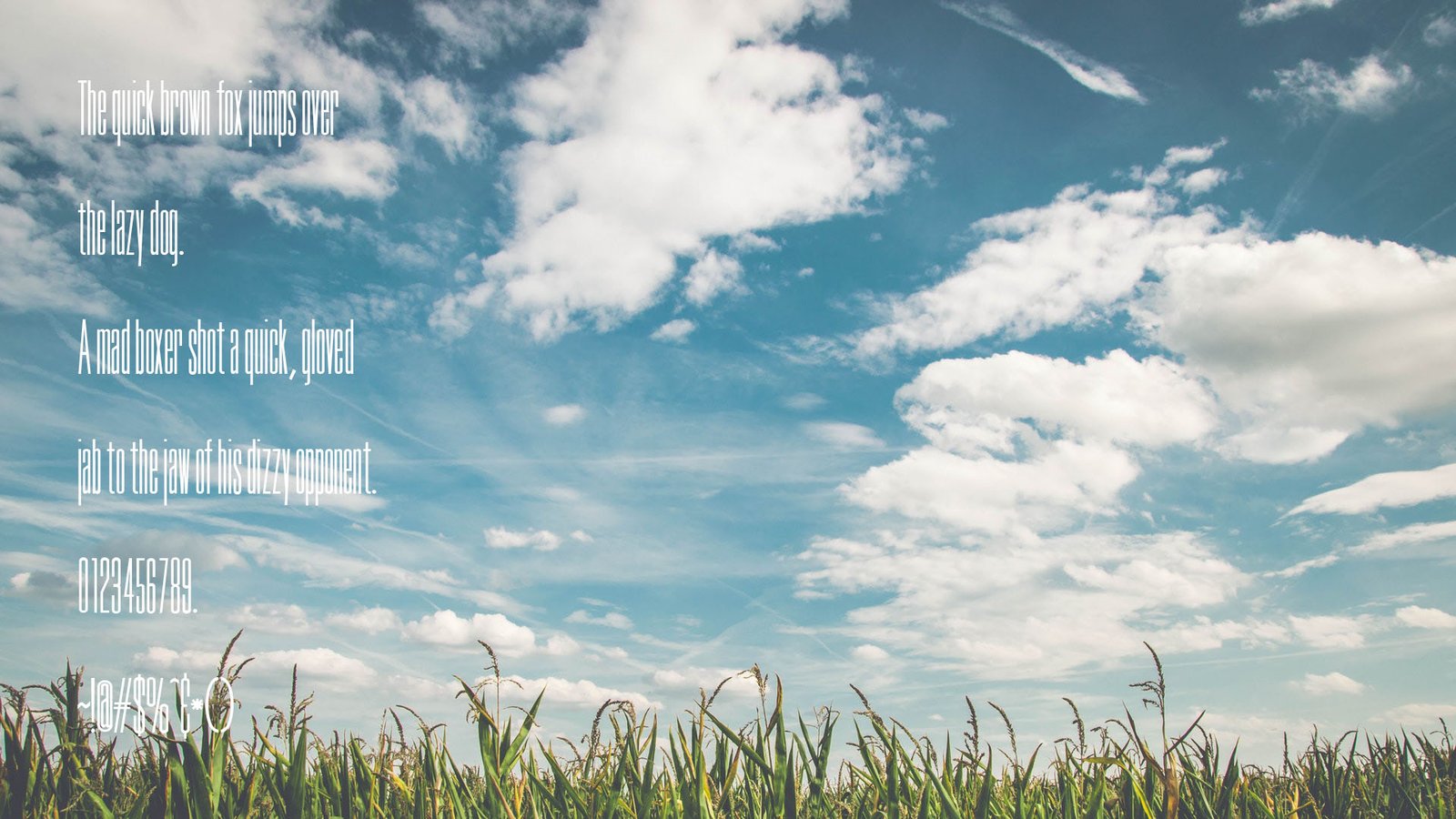
The Tall Skinny Condensed font is a sleek and modern typeface that adds a contemporary and streamlined look to your text. The letters are tall and narrow, creating a sense of vertical elegance.
This font is ideal for projects that require a chic and minimalist aesthetic, such as fashion magazines, modern websites, or any content that demands a clean and sophisticated presentation. Tall Skinny Condensed font ensures that your words have a sleek and stylish appearance.
| Name | Tall Skinny Condensed Font |
| Designer | Rae Kaiser |